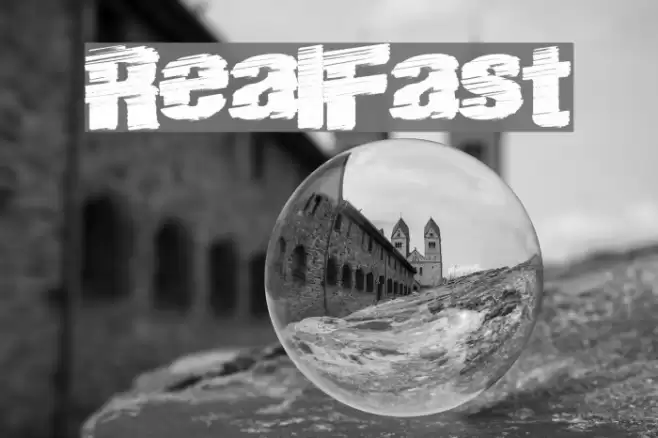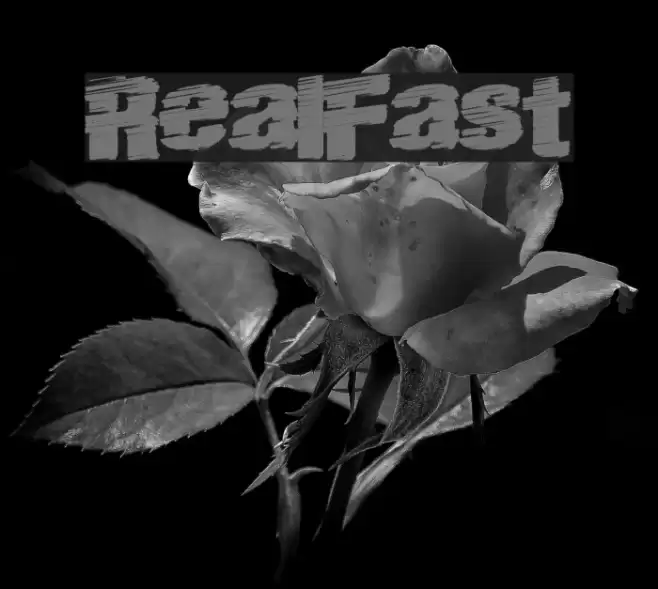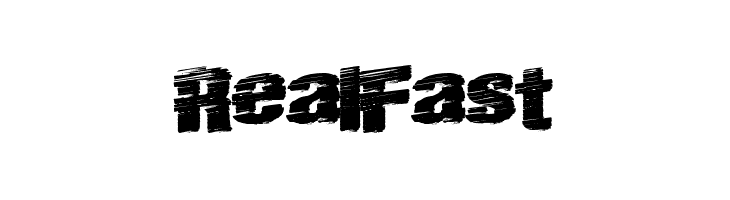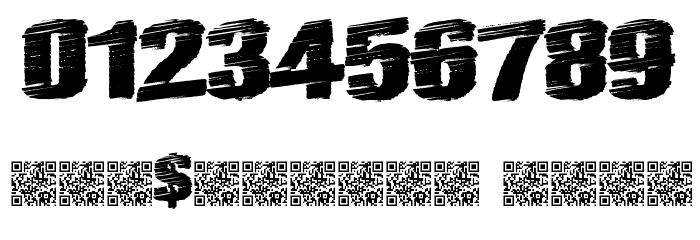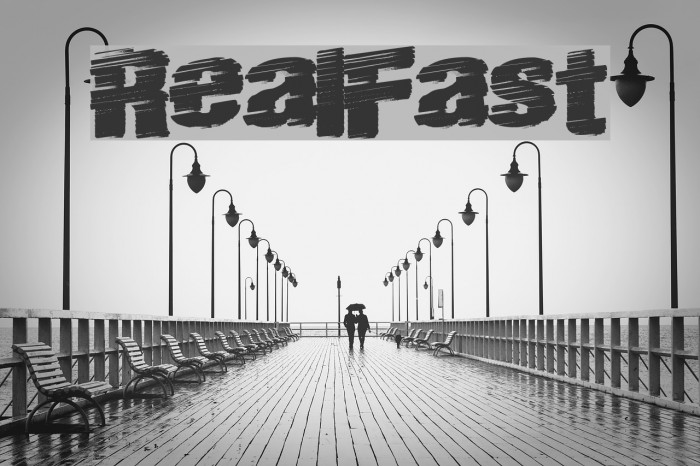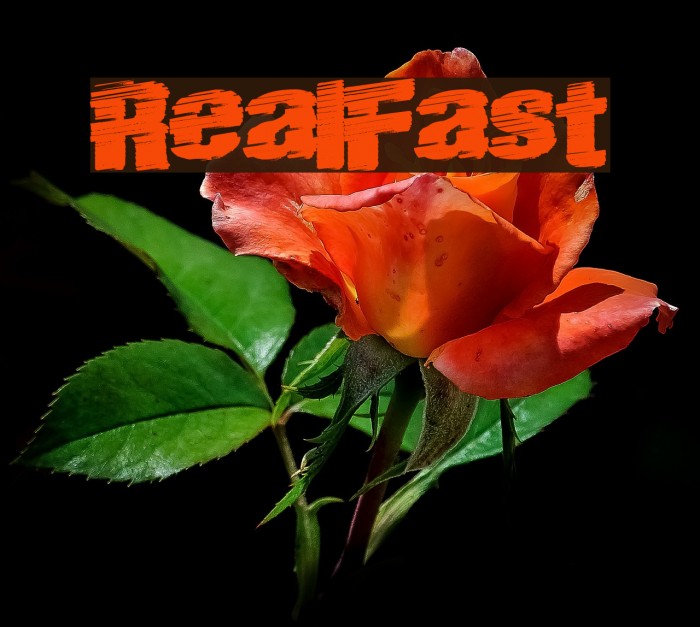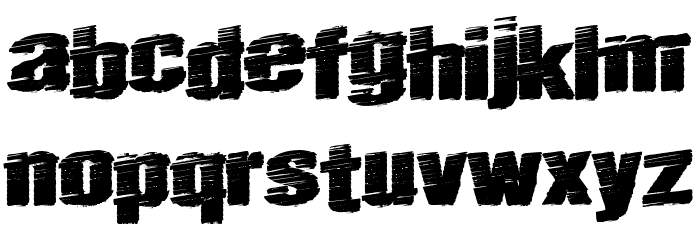
RealFast Font
RealFast Description
This font features a bold and distressed style, characterized by its rough, textured appearance that mimics a brushstroke or worn-out effect. The uppercase and lowercase letters, along with numbers and special characters, maintain a consistent ruggedness, giving the font a dynamic and energetic feel. The strokes are thick, with irregular edges that add to its raw aesthetic. This font is ideal for projects that require a strong visual impact, such as posters, headlines, or branding materials that aim to convey a sense of urgency or edginess.
A bold, distressed font with a rugged, brushstroke appearance from Distorted Eroded fonts.
- Proposed Projects: Ideal for posters, headlines, branding, and any design needing a strong, edgy impact.